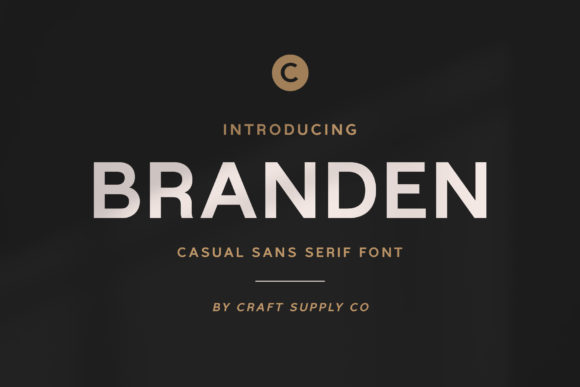
Introducing Branden Font – The Epitome of Simplicity and Casual Elegance
In a world saturated with visual clutter, simplicity has become the ultimate luxury. Embark on a typographic journey with Branden Font, a sans serif masterpiece that embodies the essence of minimalism and timeless aesthetics.
Branden's clean lines and unassuming presence lend an air of sophistication to any design. Its carefully crafted letterforms exude a sense of order and harmony, creating a visual symphony that captivates the eyes. Whether you're crafting elegant logos, eye-catching headlines, or captivating social media posts, Branden Font is your perfect companion.
Immerse yourself in the versatility of Branden Font. Its understated charm seamlessly adapts to a myriad of design styles, from classic to contemporary. Whether you're designing a sophisticated wedding invitation, a dynamic marketing campaign, or a playful children's book, Branden Font will elevate your creations with its timeless appeal.
Unleash your creativity with Branden Font's extensive character set, featuring multilingual support and a wealth of stylistic alternatives. Experiment with ligatures, swashes, and alternates to add depth and personality to your designs. The possibilities are endless, allowing you to express your unique artistic vision.
Branden Font is not just a collection of letters; it's an invitation to embark on a creative odyssey. Its simplicity and versatility provide a blank canvas for your imagination to run wild. Whether you're a seasoned designer or just starting your typographic journey, Branden Font will empower you to create designs that leave a lasting impression.
So, why settle for ordinary when you can embrace the extraordinary? Download Branden Font today and unlock a world of creative possibilities. Let your designs speak volumes with the understated elegance and timeless charm of Branden Font.